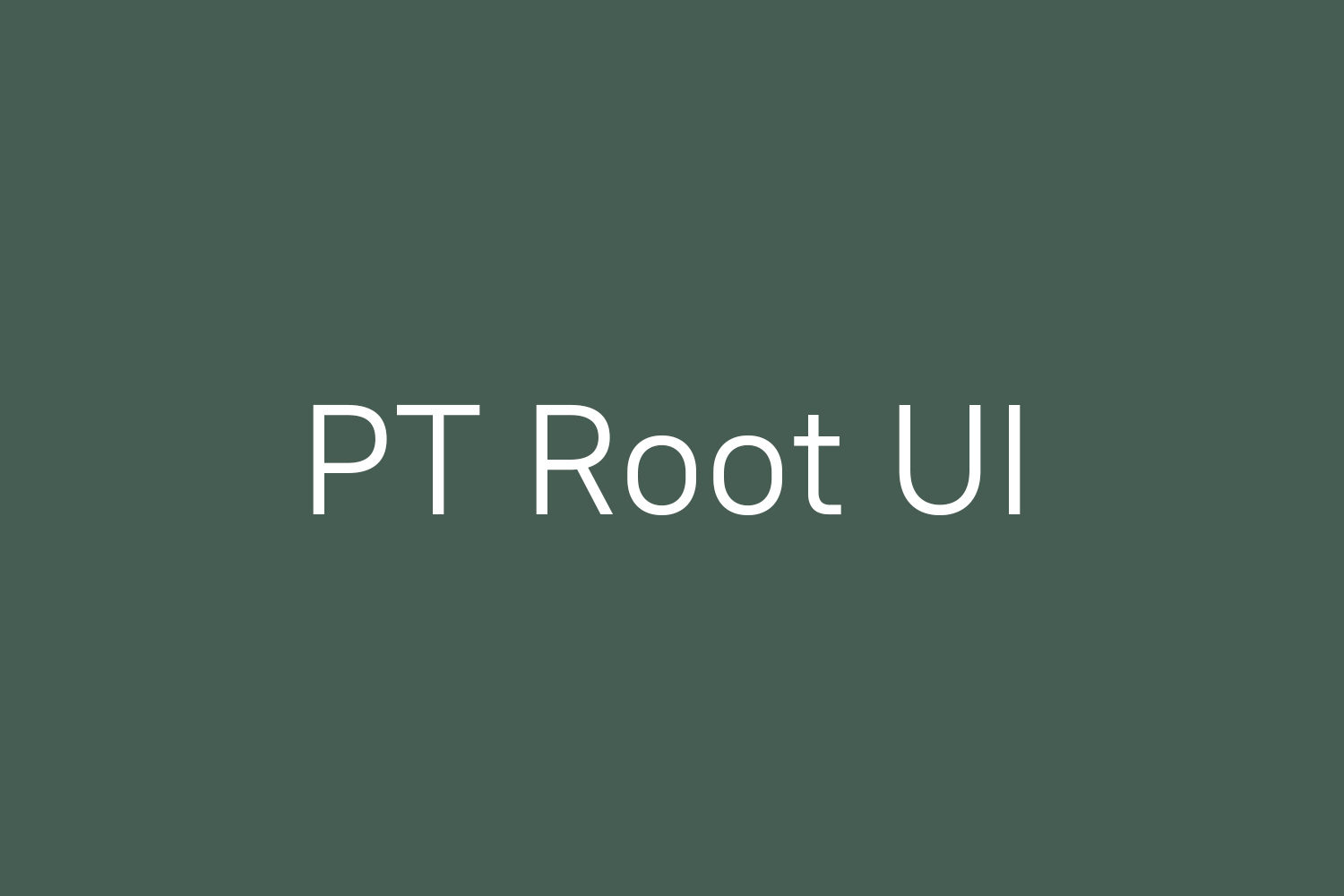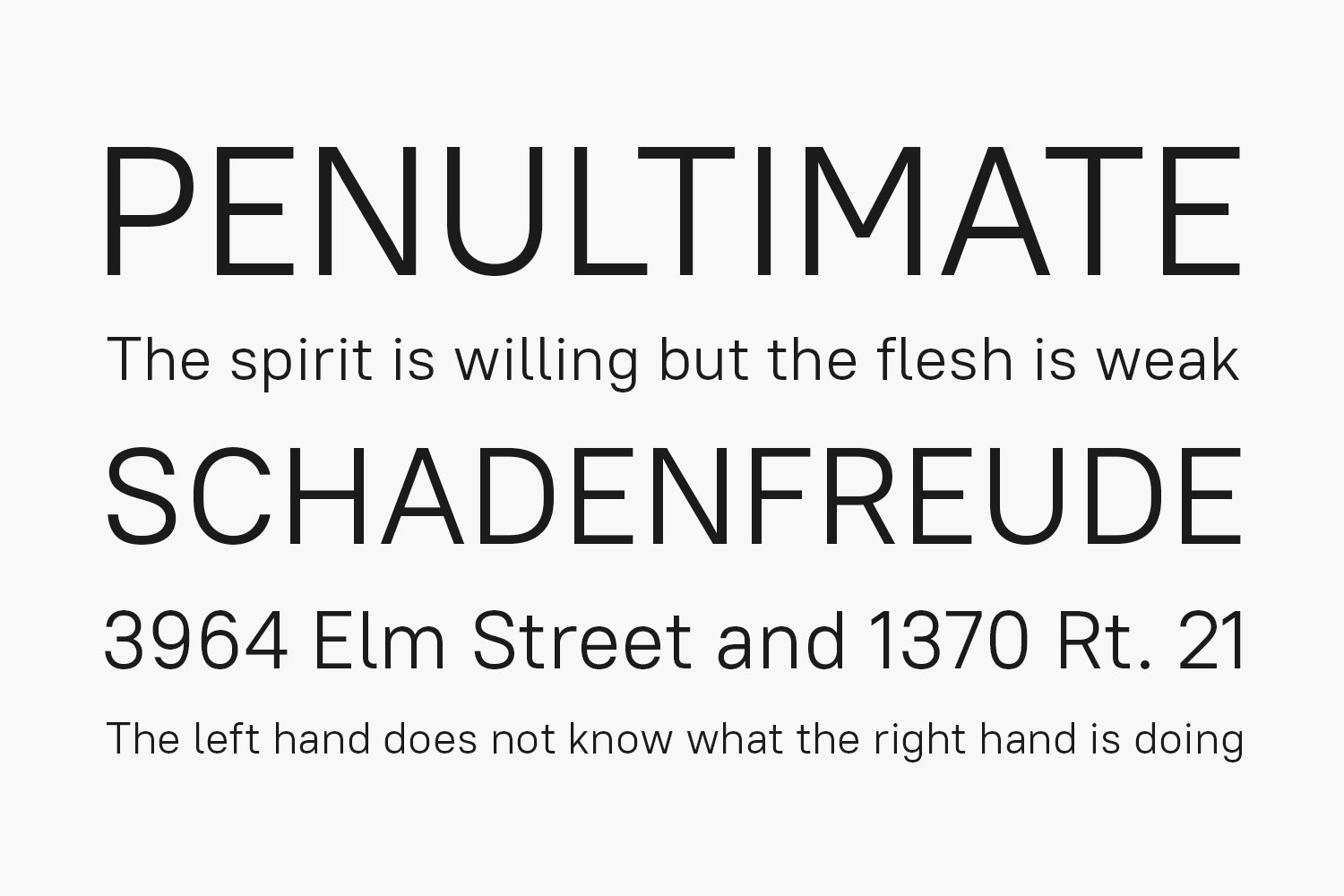
PT Root UI Free Font Family is a special part of the PT Root typeface family. It consists of four styles of normal proportions, from Light to Bold, intended for screen reading, interfaces, websites, as well as wayfinding systems. PT Root UI is a modern uniwidth sans serif whose individual character widths are constant across all weights. This is especially convenient for headers, menu bars, and interface elements. It has broad language support, including the Latin Extended and Cyrillic (including Cyrillic Asian), different sets of figures and currency signs, fractions and indices, as well as a number of wayfinding signs and alternative forms. PT Root UI was designed by Vitaly Kuzmin and released by Paratype in 2018.